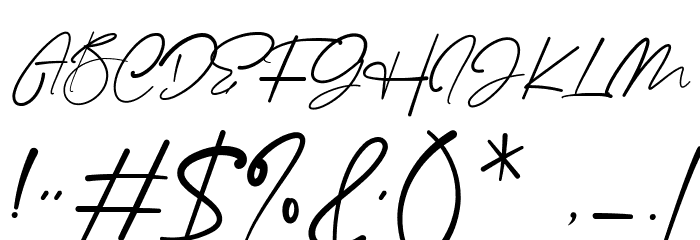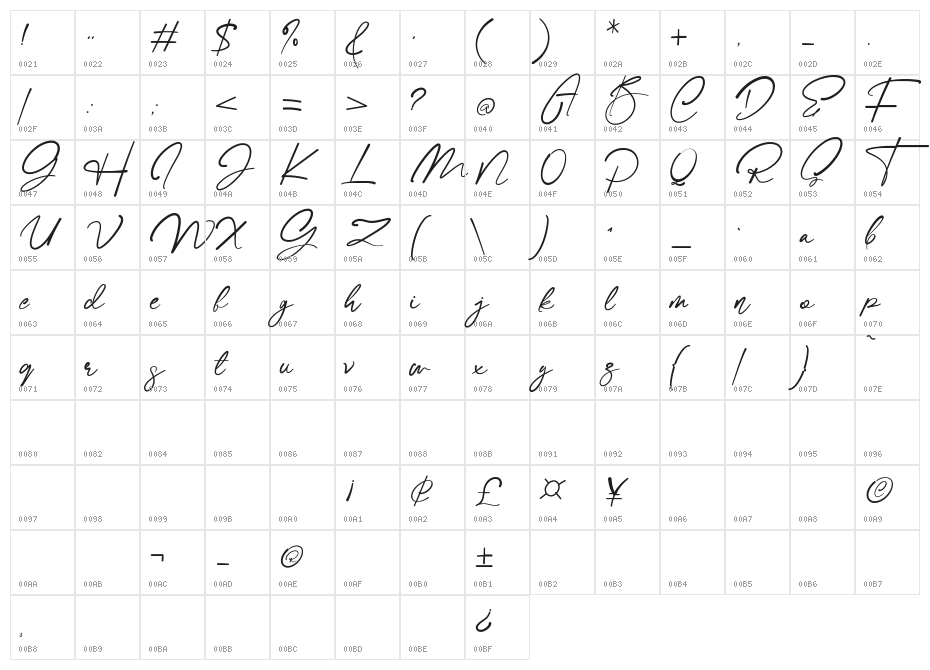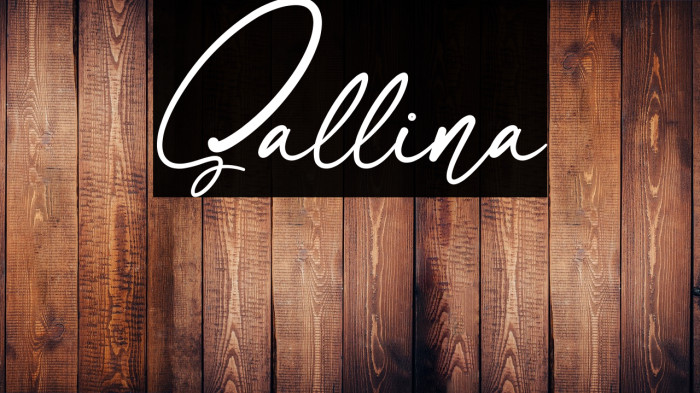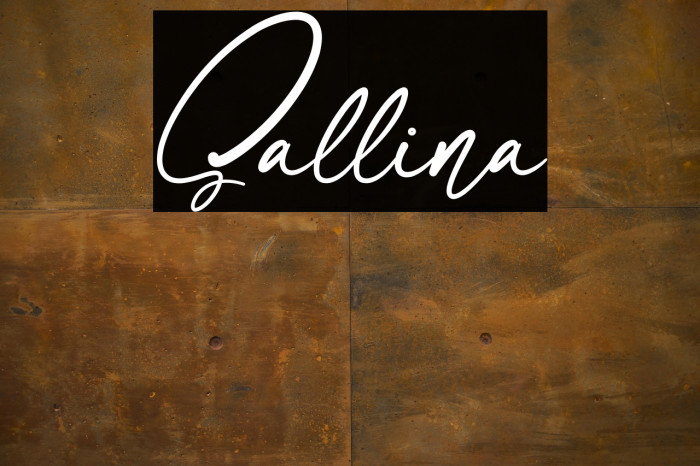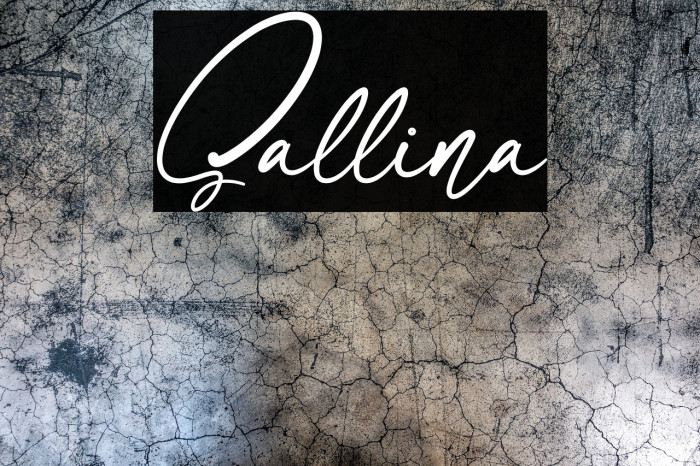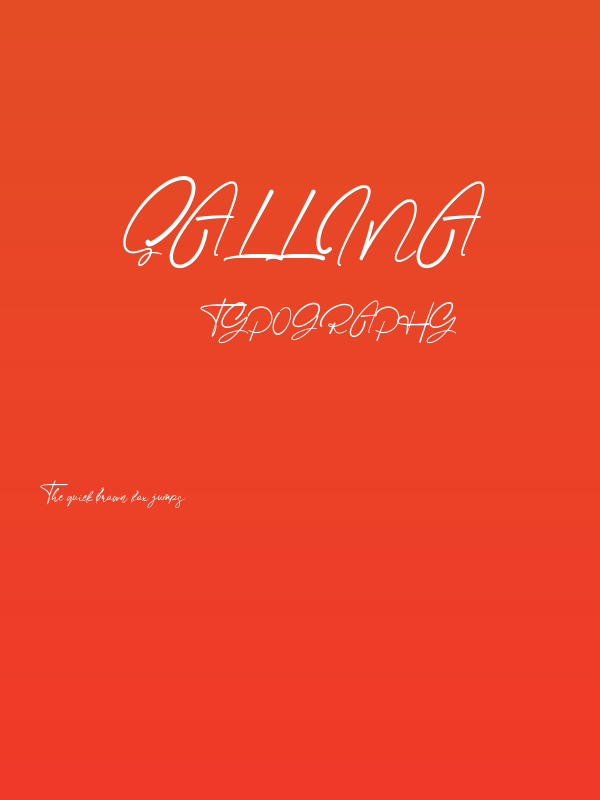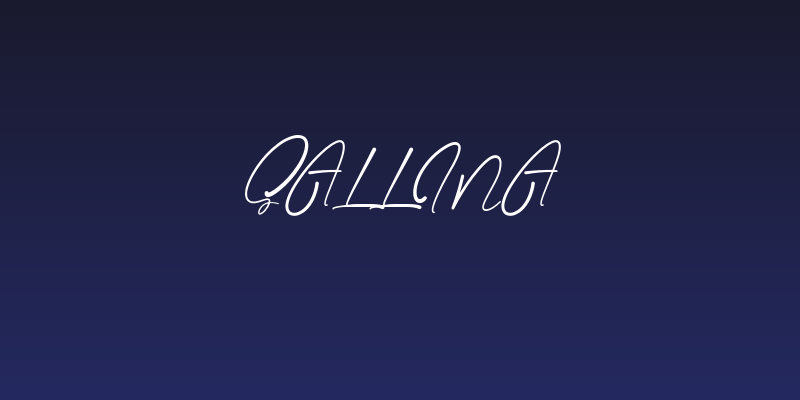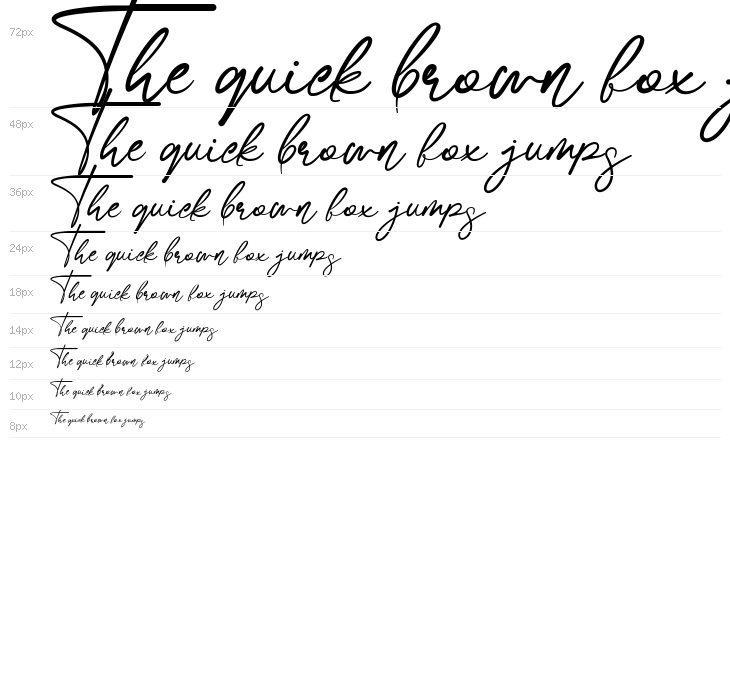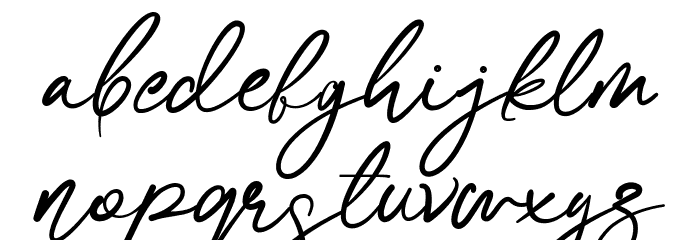
Sallina Font
Sallina Description
This font features a flowing, cursive style that mimics elegant handwriting. The uppercase letters are gracefully looped and connected, giving a sense of fluidity and motion. The lowercase letters maintain a consistent style with smooth curves and a slightly playful character. The font includes a variety of special characters, which are designed to complement the overall script style. The strokes vary in thickness, providing a dynamic contrast that enhances readability while maintaining an artistic flair. This font is ideal for projects that require a personal touch or a sense of sophistication.